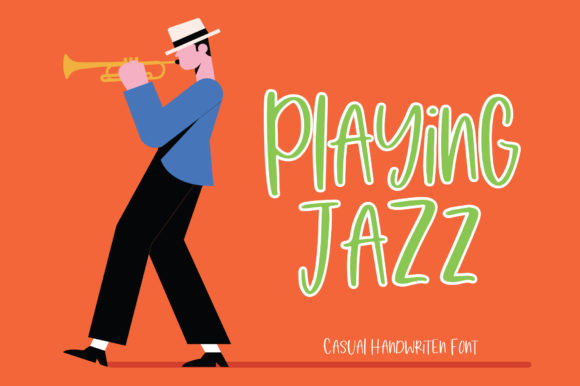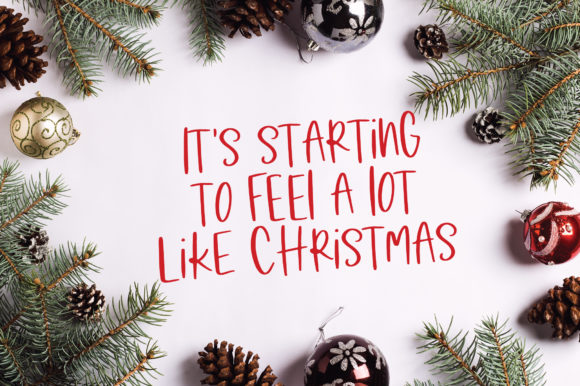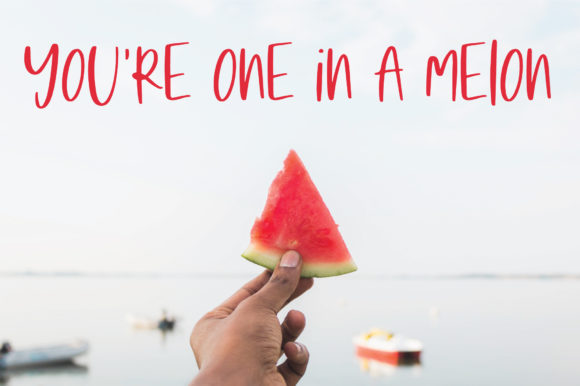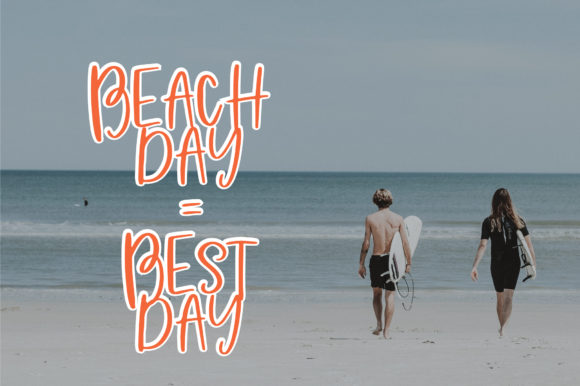
HomeScript FontsPlaying Jazz Font Script Fonts Playing Jazz Font FacebookXPinterestWhatsApp Playing Jazz Font Poster 2 Playing Jazz Font Poster 3 Playing Jazz Font Poster 4 About Playing Jazz Font Playing Jazz is an artistic andcasual handwritten font with a creative spin. Get funky with this playful script! DOWNLOAD NOW People also explored Dea Githa Font Sweater Weather Serif Font Nightfall Font Tupelo Honey Font Tessera Ethryne Font Alyale Font Austin Capittal Font Hawkins Font 283 0 TagsPlaying Jazz Font Previous articleAroha Script FontNext articleQuick Signature Font LEAVE A REPLY Cancel reply Comment: Please enter your comment! Name:* Please enter your name here Email:* You have entered an incorrect email address! Please enter your email address here Website: Save my name, email, and website in this browser for the next time I comment. Personal Use Free Dakwart Letter Personal Use Free Read more about this font City Tour Personal Use Free Read more about this font Shnobel Personal Use Free Read more about this font BD Fluke Personal Use Free Read more about this font BLOG Elegant Wedding Invitation Fonts – Handwritten & Script Fonts Elegant Wedding Invitation Fonts Your wedding day is one of the most important moments of your life, and every detail matters—including your invitation design. Our... Where to Buy American Fonts Online in 2024 Fonts That Capture the Spirit of New York City To increase your work productivity, choose the most readable fonts.